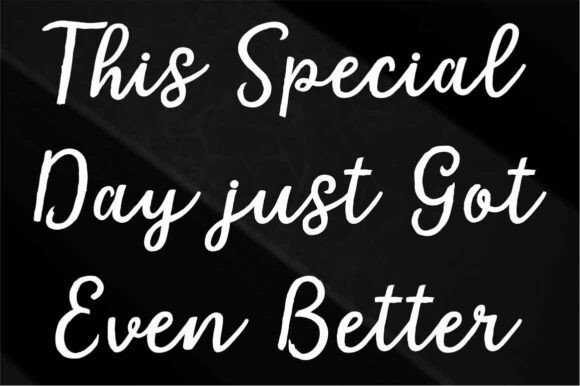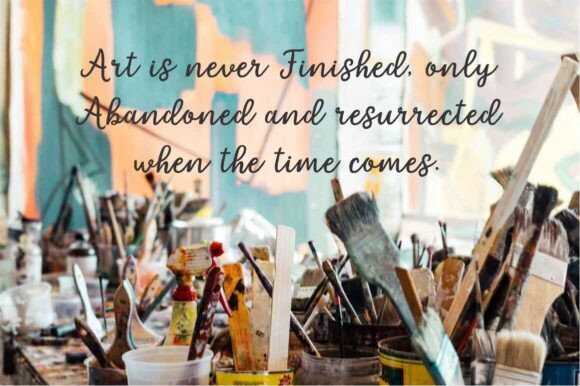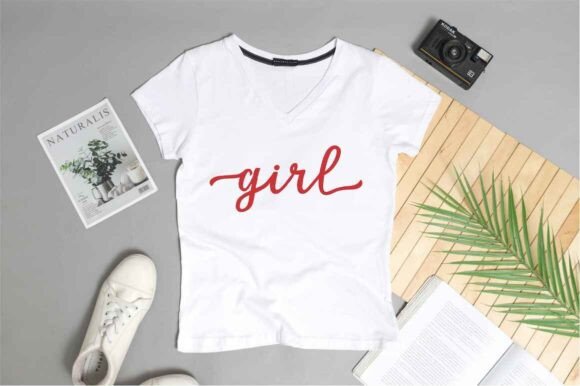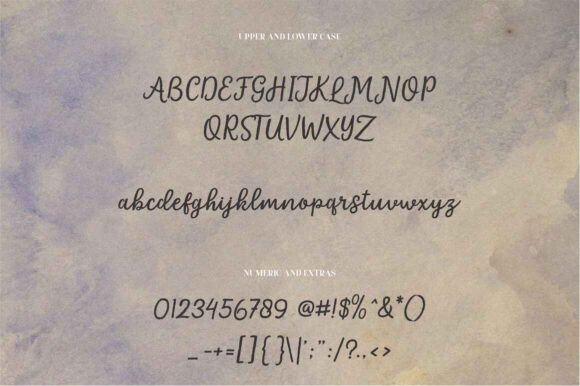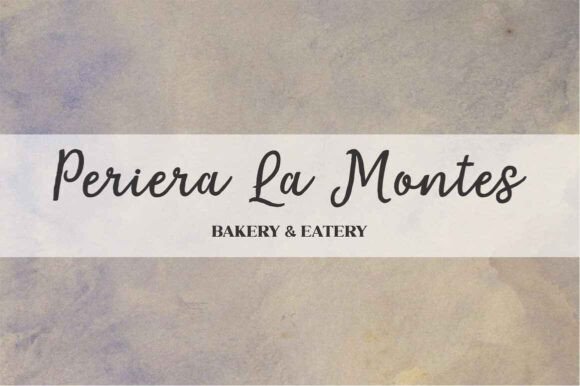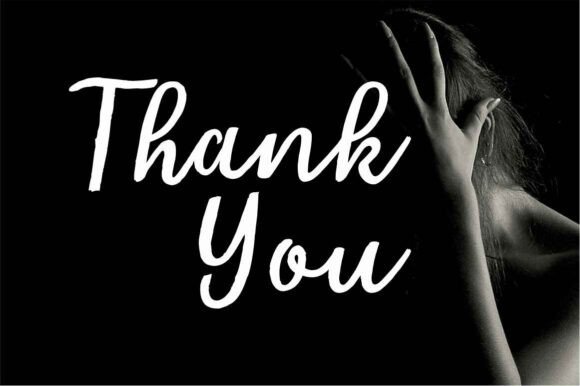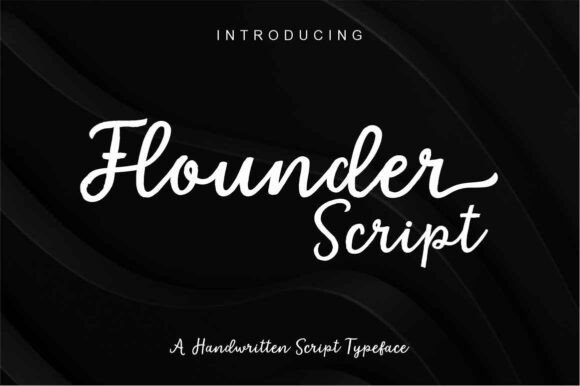
Introducing Flounder Script Font: The Perfect Casual Handwritten Style for Your Creative Projects
Are you a designer or crafter looking for a unique and elegant font to elevate your creative projects? Look no further than Flounder Script Font, a beautiful casual handwritten font that’s perfect for a variety of applications. In this article, we’ll dive into the features and benefits of Flounder Script Font, and explore how you can use it to add a personal touch to your designs.
What is Flounder Script Font?
Flounder Script Font is a carefully crafted handwritten font that’s designed to bring a touch of elegance and sophistication to your designs. With its flowing lines and casual charm, this font is perfect for creating beautiful and eye-catching text that stands out from the crowd.
Key Features of Flounder Script Font
- Casual Handwritten Style: Flounder Script Font features a casual handwritten style that’s perfect for creating a personal and relaxed vibe in your designs.
- Highly Readable: Despite its elegant and cursive nature, Flounder Script Font is highly readable, making it perfect for use in body text, headings, and titles.
- Versatile: Flounder Script Font is incredibly versatile, and can be used in a wide range of applications, from greeting cards and wedding stationery to logos, watermarks, and apparel design.
- Modern and Fresh: Flounder Script Font has a modern and fresh feel that’s perfect for creating designs that are contemporary and stylish.
Use Cases for Flounder Script Font
So, what can you use Flounder Script Font for? The possibilities are endless, but here are some ideas to get you started:
- Greeting Cards: Add a personal touch to your greeting cards with Flounder Script Font, perfect for birthdays, weddings, and other special occasions.
- Wedding Stationery: Make your wedding stationery stand out with Flounder Script Font, perfect for invitations, save-the-dates, and thank-you cards.
- Photographer Watermarks: Add a touch of elegance to your photographer watermarks with Flounder Script Font, perfect for protecting your images while showcasing your brand.
- Logos: Create a unique and memorable logo for your business or brand with Flounder Script Font, perfect for use on your website, social media, and marketing materials.
- Modern Websites: Add a touch of personality to your website with Flounder Script Font, perfect for use in headings, titles, and body text.
- Apparel Design: Create stylish and eye-catching apparel designs with Flounder Script Font, perfect for t-shirts, hoodies, and other clothing items.
Why Choose Flounder Script Font?
So, why choose Flounder Script Font over other fonts? Here are just a few reasons:
- Unique and Elegant: Flounder Script Font is a unique and elegant font that’s sure to make your designs stand out from the crowd.
- Easy to Read: Despite its elegant nature, Flounder Script Font is highly readable, making it perfect for use in body text and other applications.
- Versatile: Flounder Script Font is incredibly versatile, and can be used in a wide range of applications and designs.
- High-Quality: Flounder Script Font is a high-quality font that’s designed to deliver exceptional results in your designs.
| Font Name | Flounder Script Font |
| Author | gianstudio12 |
In conclusion, Flounder Script Font is a beautiful casual handwritten font that’s perfect for designers and crafters looking to add a personal touch to their creative projects. With its elegant and flowing lines, highly readable design, and versatile nature, Flounder Script Font is the perfect choice for a wide range of applications, from greeting cards and wedding stationery to logos, watermarks, and apparel design. So why wait? Download Flounder Script Font today and start creating stunning designs that showcase your unique style and creativity!